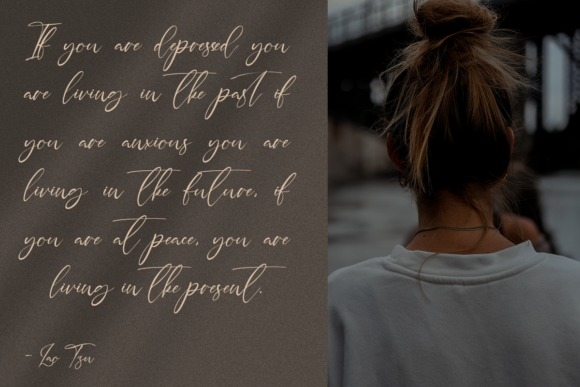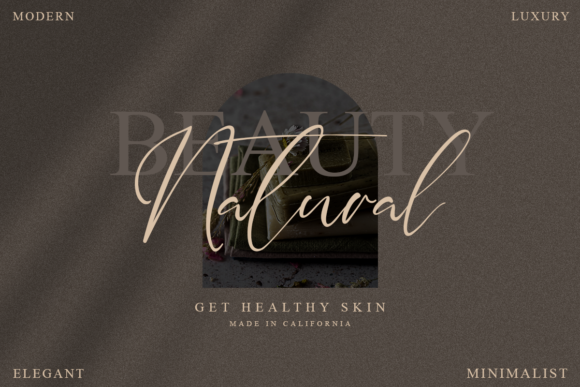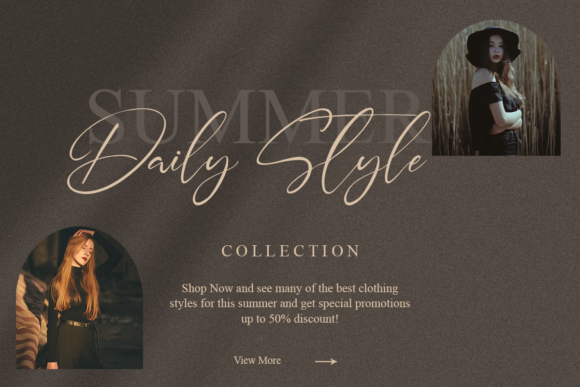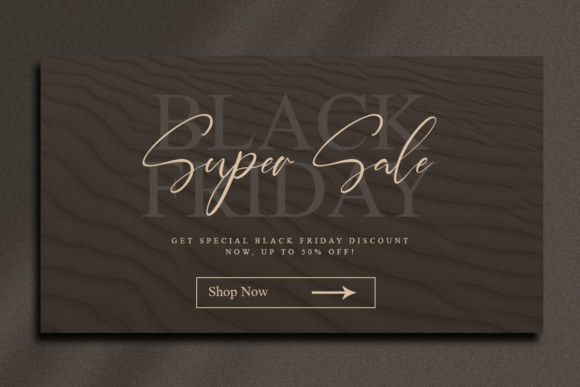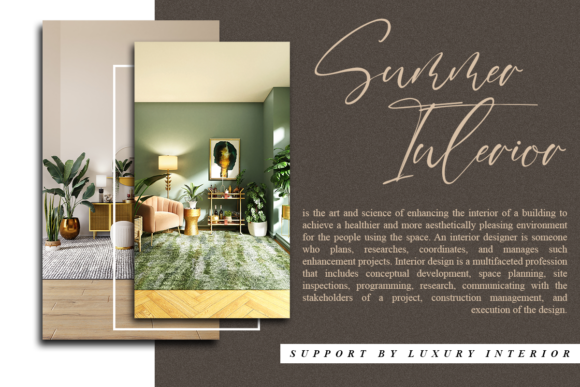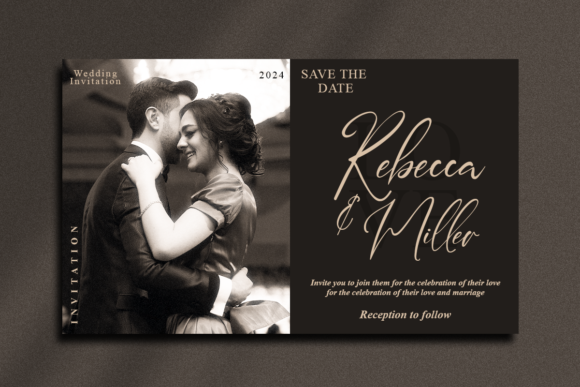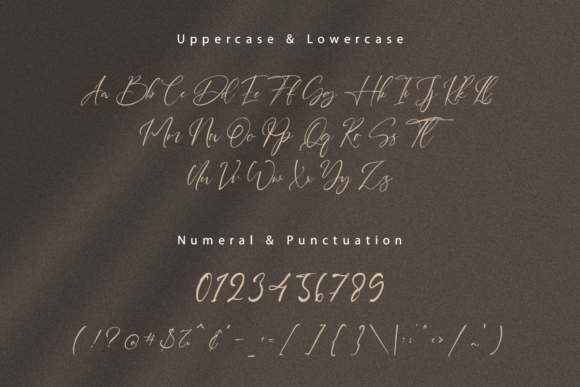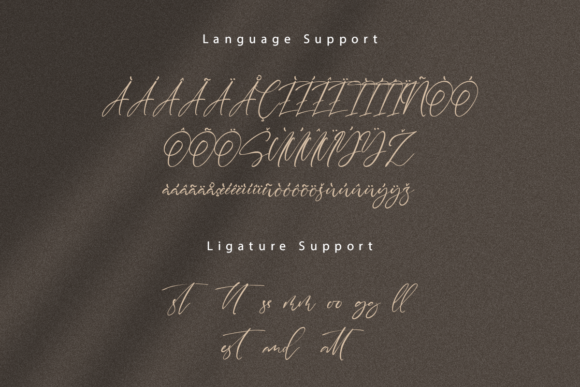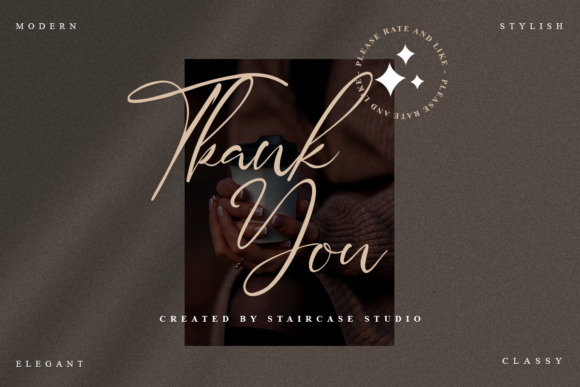
Sydney Signature Font
About Sydney Signature Font
Sydney Signature is a modern and fashionable script font. It looks gorgeous on a variety of design ideas which can elevate any creations. Fall in love with its incredibly versatile style and use it to create spectacular designs!